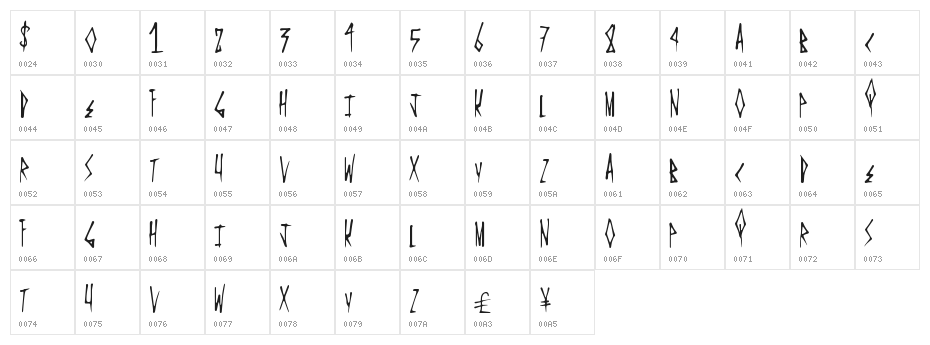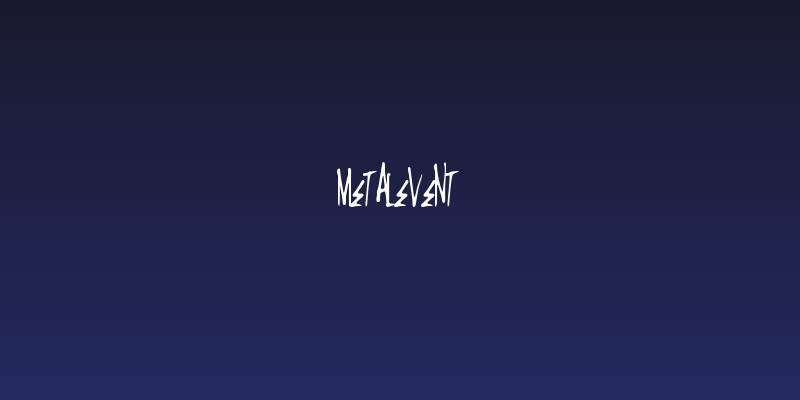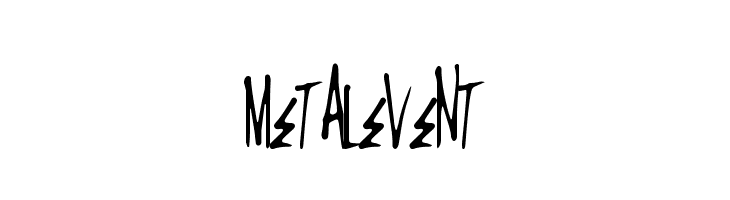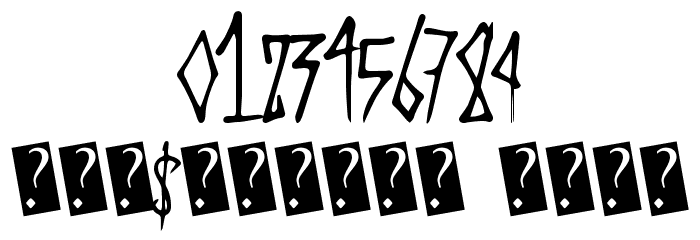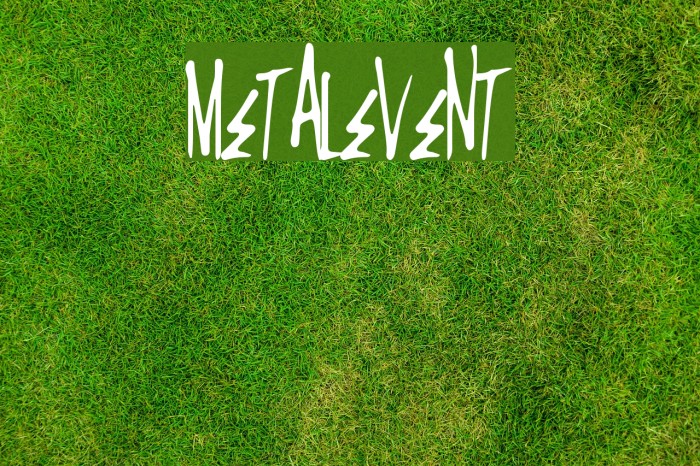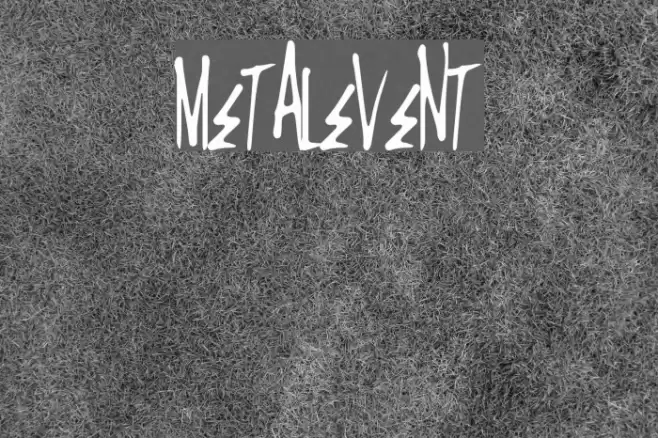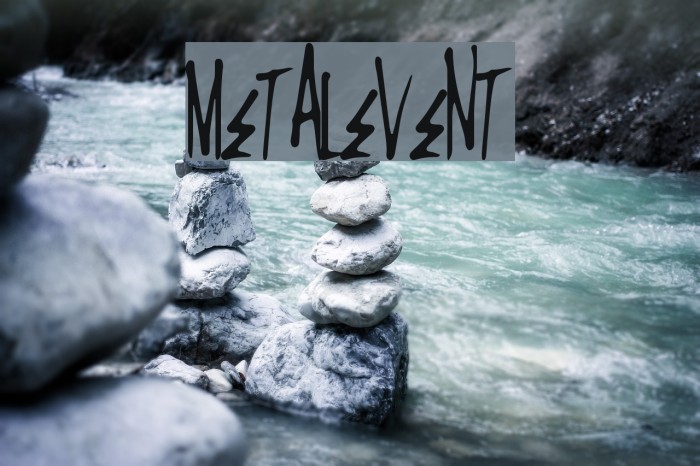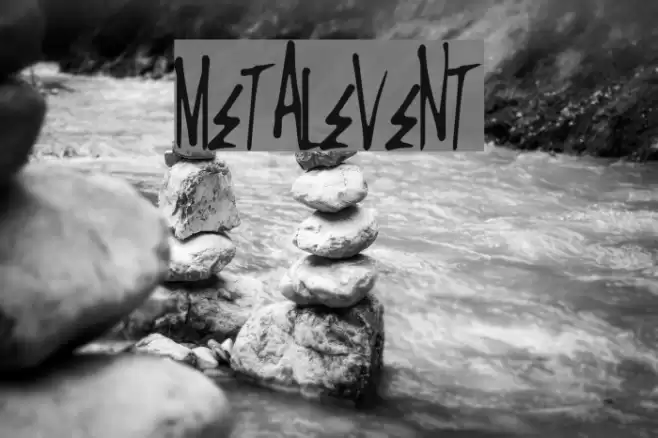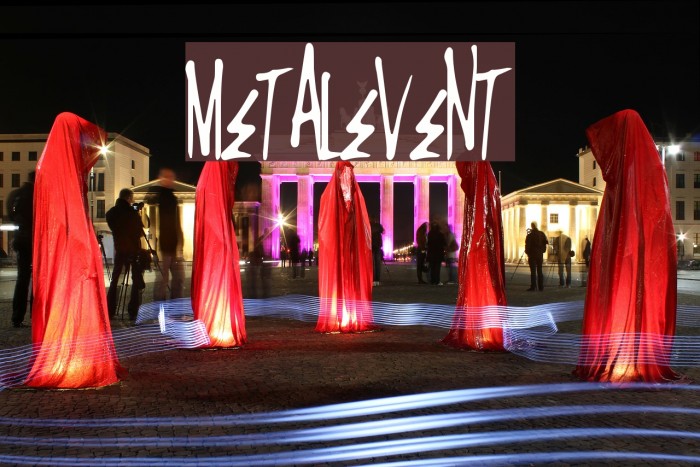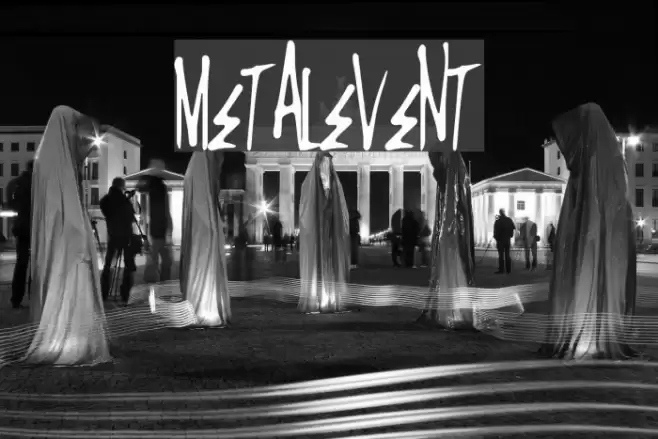
MetalEvent Font
MetalEvent Description
This font features a bold and edgy design, characterized by sharp angles and a hand-drawn aesthetic. The uppercase letters are distinct with exaggerated strokes, giving a sense of movement and energy. The lowercase letters maintain a consistent style, complementing the uppercase with their angular forms. Numbers are similarly styled, with a unique flair that makes them stand out. The special characters, including symbols like $, ?, and &, are crafted to match the overall theme, adding a cohesive look to the font. This font is ideal for projects that require a strong, rebellious, or alternative vibe, such as music event posters or edgy branding materials.